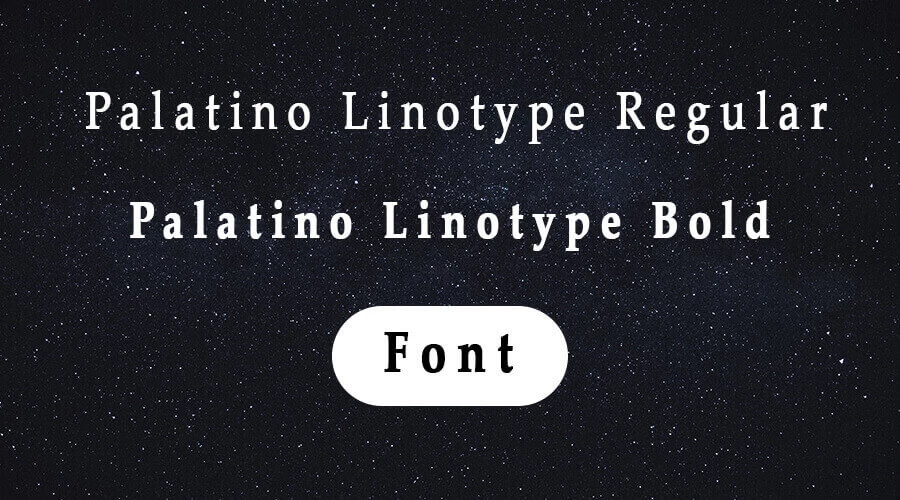
Palatino is an old-style serif typeface font designed by Hermann Zapf. Hermann Zapf released it in 1949 through The Stempel foundry. For its typeface only, Palatino has ranked among the top 10 typefaces in the world. Linotype has the copyright of this font The main publishers of the font are Linotype and Adobe. Plalatino font has an upgrade version which was published in 2005 called Palatino Nova. Also, a font called “Book Antiqua” is inspired by Palatino font.
Palatino font has glamorous characteristics just for its typeface and heavier weight. Its typeface has a cutting-edge calligraphy style which makes Palatino unique and gorgeous.
Palatino font is mainly designed for advertising and display printing. For composing books advertising headlines, print invitation or business cards, you can use Palatino.
Design banner, brochure layout, posters, movies titling and in many more workplaces, Palatino font is a trusted name. You can also use this font for developing websites or a game. Palatino font is very readable for its open counter. So, Palatino is useful for all workplaces.
What type of font is Palatino?
Ans: Palatino is an old-style serif typeface font designed by Hermann Zapf.
Is there any font similar to Palatino font in Google Fonts?
Ans: Playfair Display font is similar to Palatino font in Google Fonts.